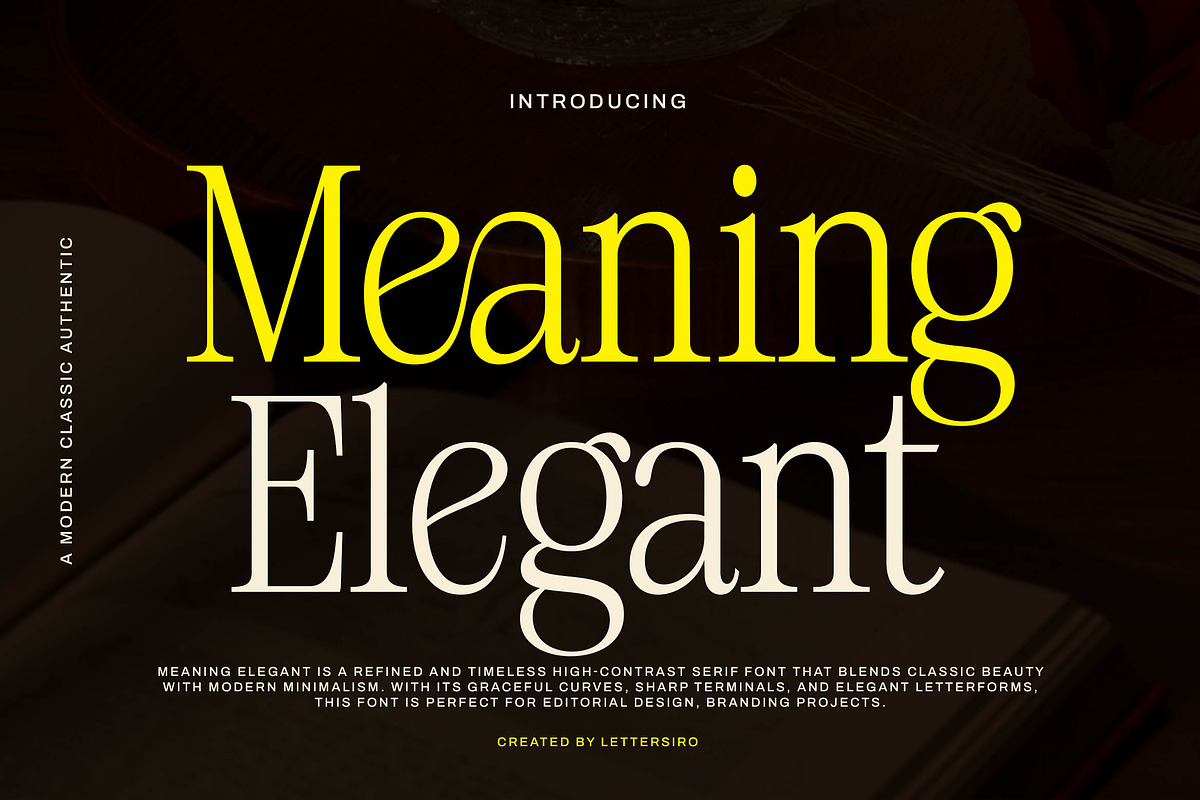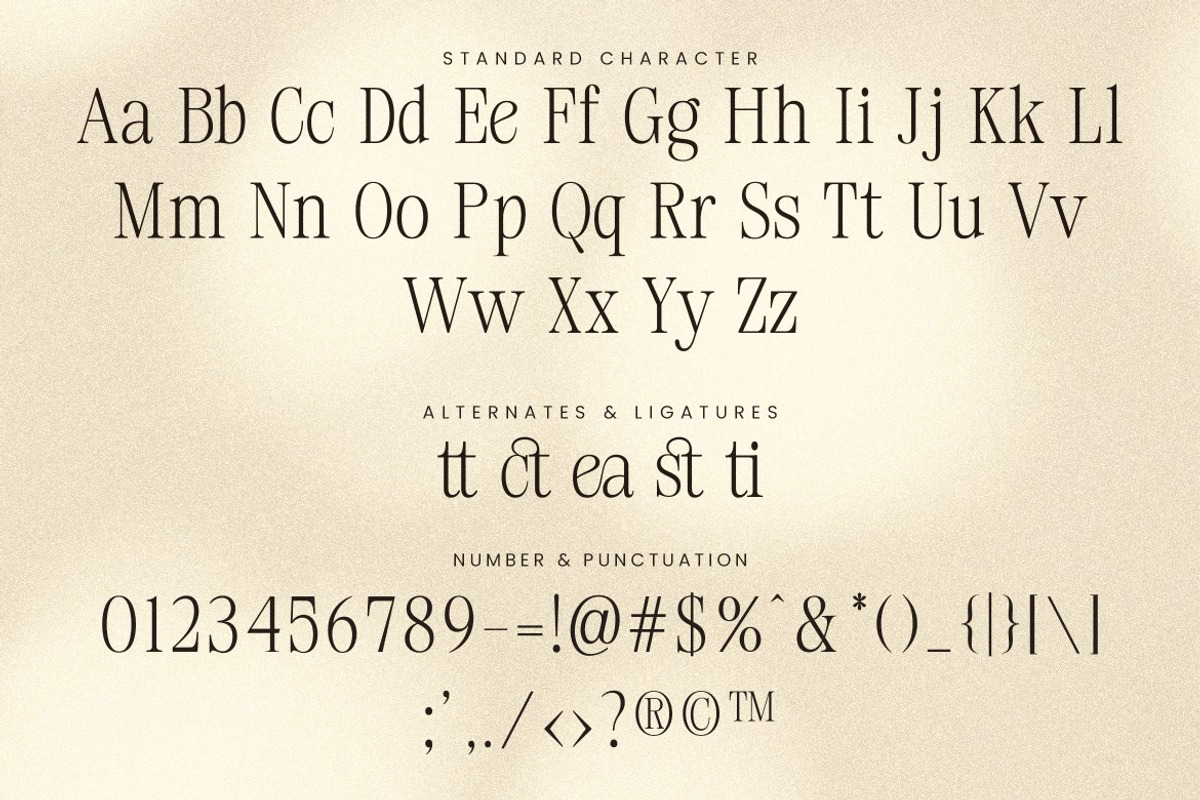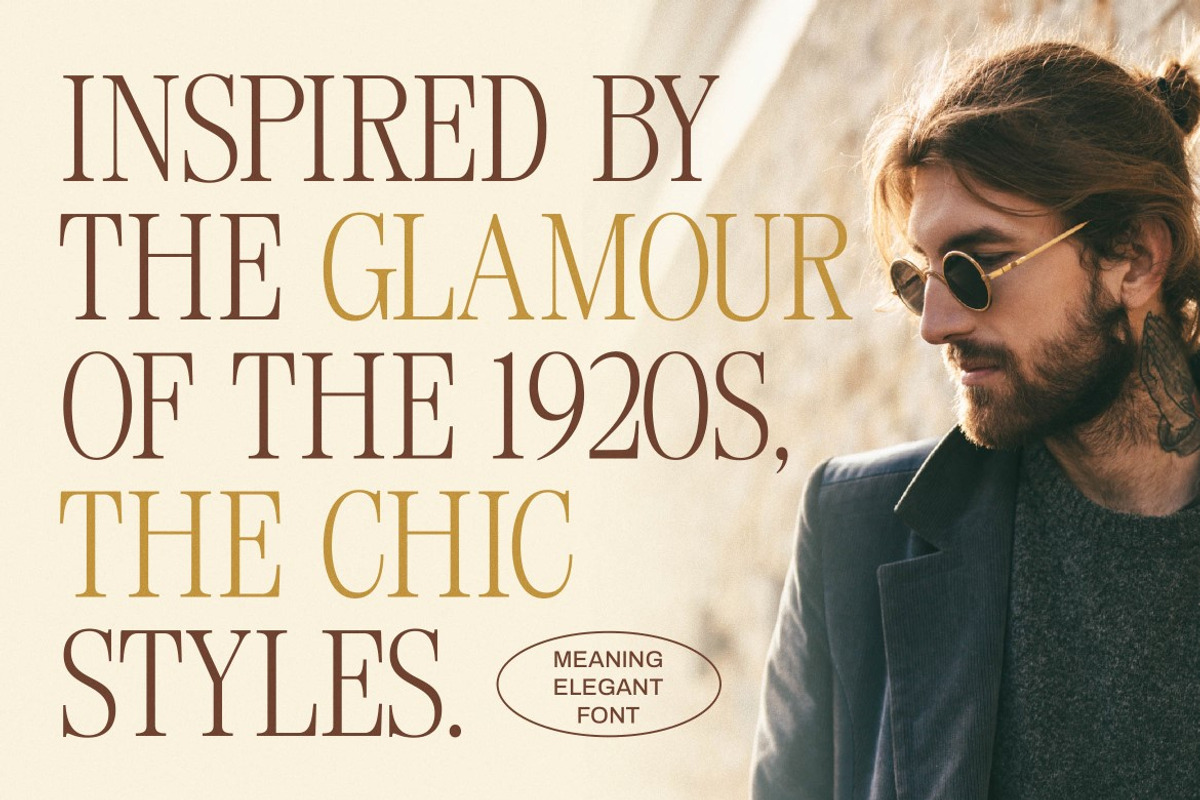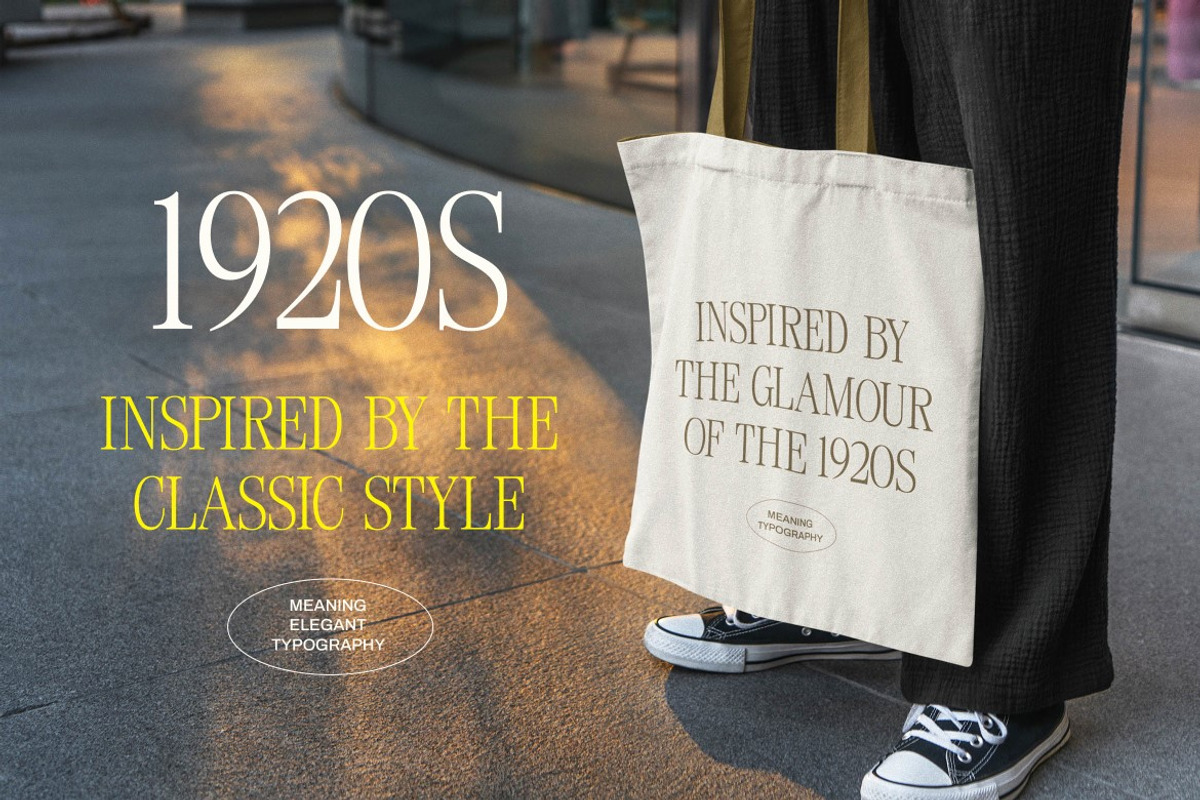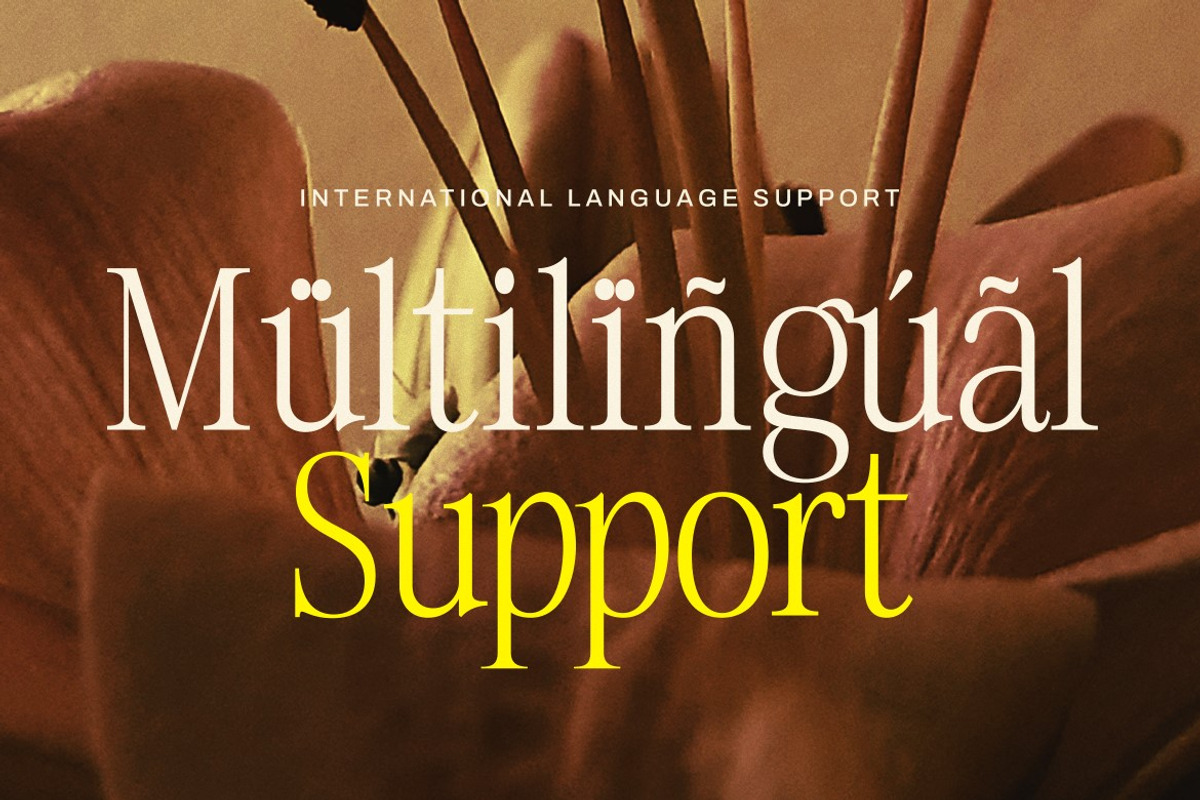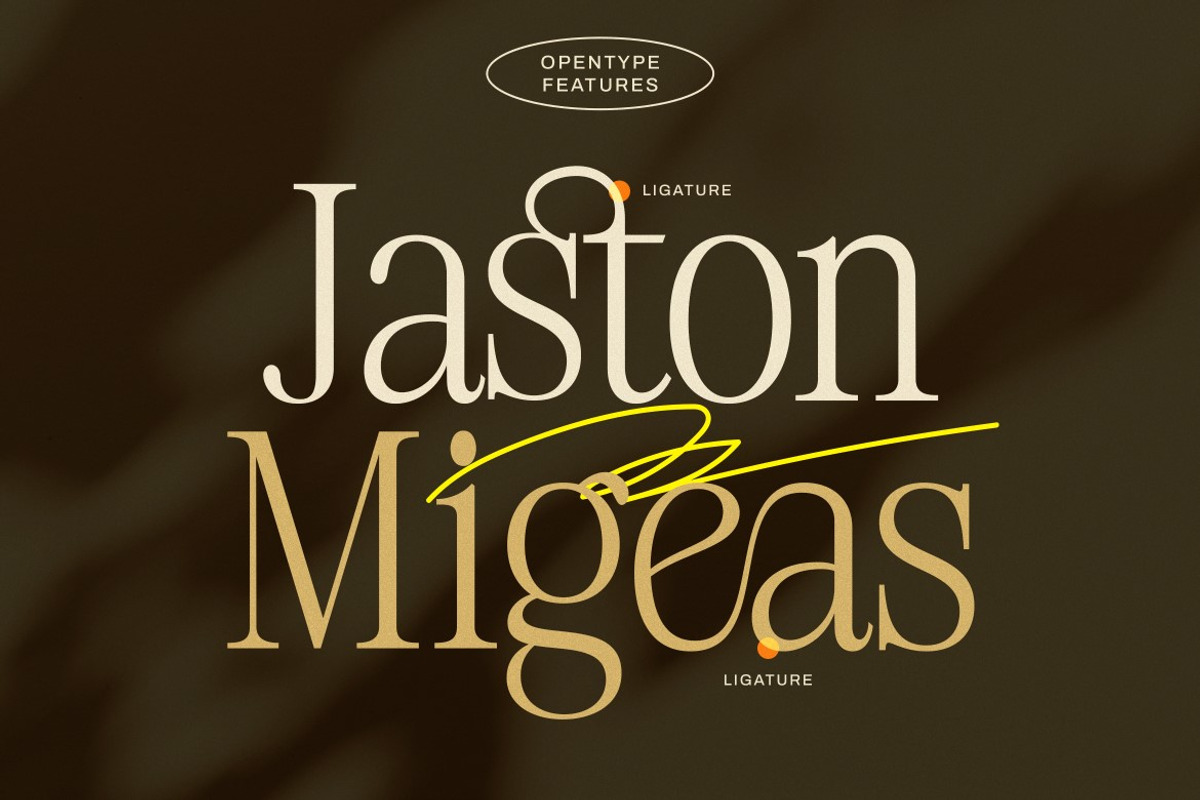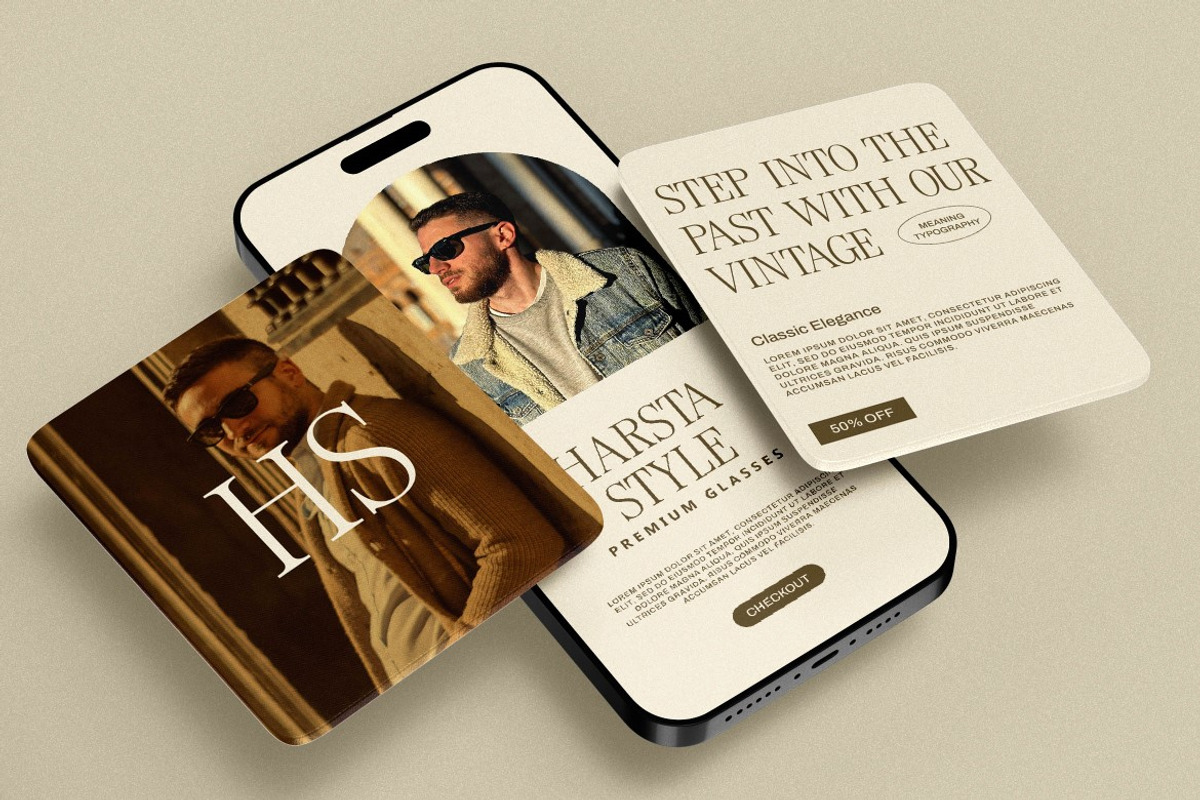
Meaning Elegant - Classic Serif Font
Meaning Elegant is a classic serif font with a stylish flair, inspired by the timeless charm of early 20th-century typography. Its sharp contrasts, graceful terminals, and refined curves bring out a distinct personality—perfect for projects that demand both tradition and creativity.
Crafted with a nod to vintage editorial design, this font blends nostalgic character with modern usability. It’s ideal for logo design, editorial titles, product packaging, and visual branding that needs a stylish, high-contrast serif. Whether used for bold headlines or refined text, Meaning Elegant delivers consistent beauty and legibility across every letter.
Meaning Elegant is your go-to font for storytelling with clarity, style, and strong classic identity.
Classic Serif Style – Strong contrast with graceful serif details
Stylish Character Design – Inspired by 1920s aesthetics and chic forms
Full Character Set – Includes uppercase, lowercase, numbers, punctuation, and symbols
OpenType Features – ligatures included
Multilingual Support – Supports Western European languages
Logo Design – Create stylish brand marks with timeless feel
Editorial Projects – Magazine titles, cover headlines, and article intros
Packaging Design – Add vintage-modern charm to product presentation
Social Media & Quotes – Stylish text for storytelling visuals
Branding Systems – Classic identity with a bold personality
Meaning Elegant brings back the spirit of classic editorial typography—made modern for today’s designers.